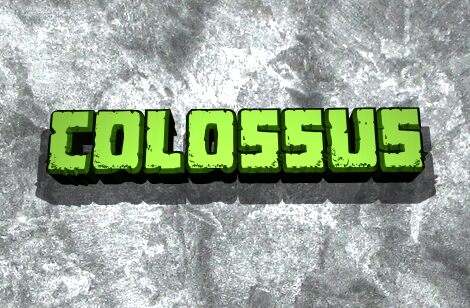
Colossus Semi-Leftalic stands as a bold and visually arresting font from the acclaimed Colossus family, crafted by Iconian Fonts. Its striking eroded style merges strength with grunge appeal, making each letter appear weathered yet commanding. The tilted design infuses a sense of dynamism and movement, while the robust weight ensures it dominates any visual field.
Ideal for bold headlines, impactful posters, or gritty branding projects, Colossus Semi-Leftalic is perfect for designs requiring an assertive and rugged aesthetic. Whether highlighting an event or defining a brand’s edgy persona, this font delivers exceptional presence and unique character. Perfectly suited for scenarios where standing out is paramount and making a statement is essential.